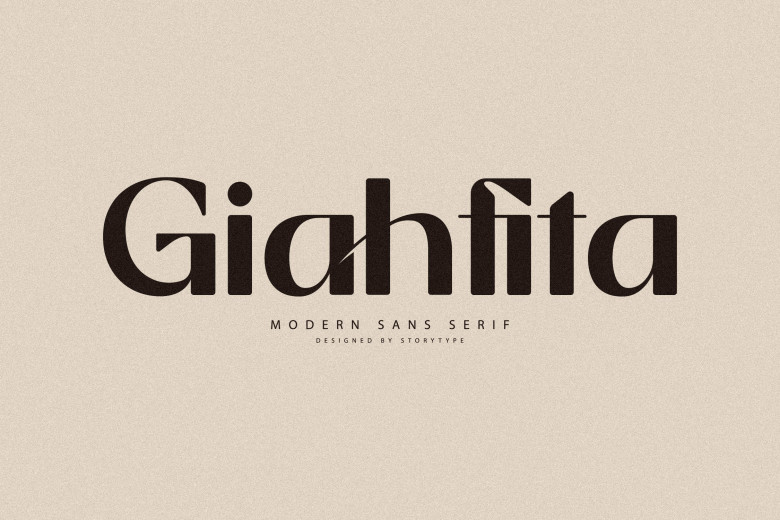
Giahfita Font
Giahfita Modern Classic Sans Serif Font. Giahfita is modern and classic san serif font with unique style and fancy look. This typeface is perfect for an elegant & luxury logo, book or movie title design, fashion brand, magazine, clothes, lettering, quotes, and so much more.
Giahfita Sans Serif Font